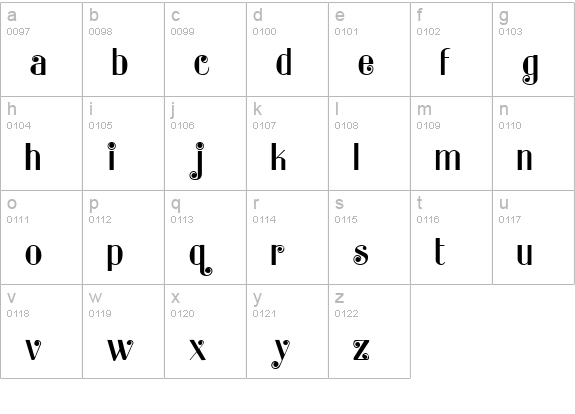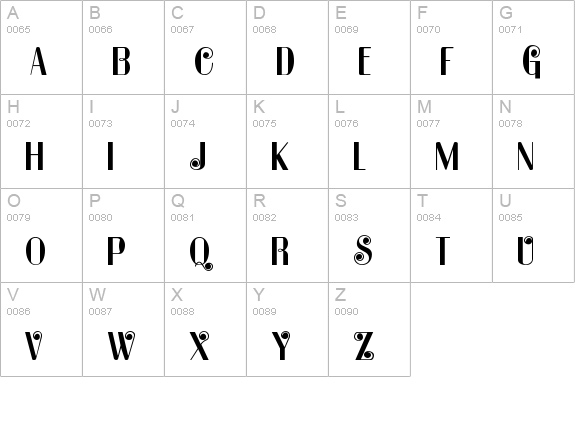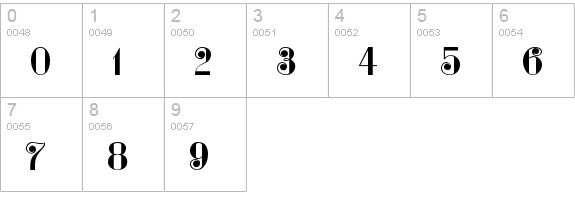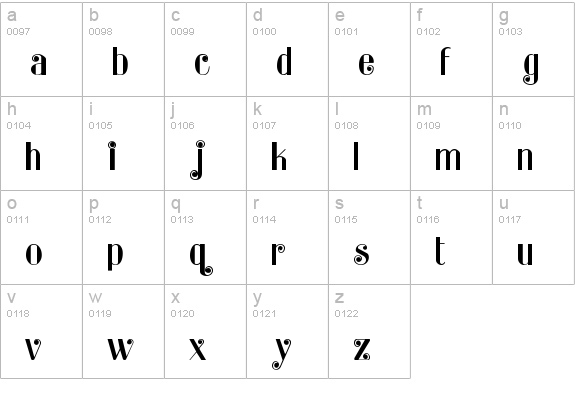
LadyBug Font Details
LadyBug font is a charming and delightful typeface that will add a touch of whimsy to any project. With its graceful curves and playful design, this font is perfect for creating eye-catching headlines, invitations, and logos. What sets LadyBug font apart is not only its unique and captivating style, but also the fact that it is completely free. Yes, you read that right! LadyBug font is freely available to download at FontsMarket.com, making it accessible to everyone who wants to add a dash of creativity to their designs without breaking the bank. Whether you're a professional designer or a DIY enthusiast, LadyBug font will inspire you with its versatility and versatility. Its gentle and friendly appearance is perfect for a wide range of applications, from children's books to wedding invitations. The combination of its slightly rounded edges and thin strokes gives LadyBug font a delicate and feminine touch, making it ideal for projects that require a soft and elegant aesthetic. LadyBug font is designed to be legible even at small sizes, ensuring that your message is clear and easy to read. Its carefully crafted letterforms and balanced spacing make it a joy to work with, whether you're designing a poster or creating a memorable branding for your business. So why wait? Discover the magic of LadyBug font and let your creativity soar. Download it for free at FontsMarket.com and bring a little bit of whimsy to your next design project.